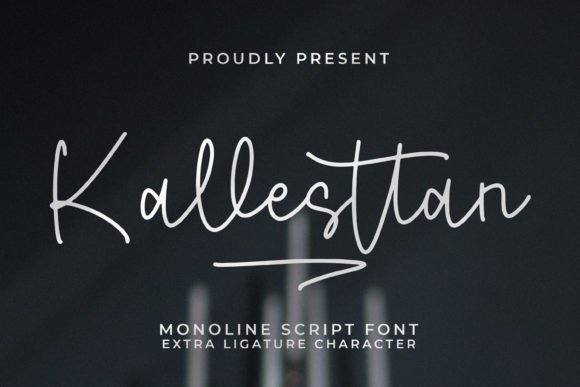
Prepare to be captivated by Kallesttan, an exceptional Monoline Script Font crafted with precision by Integritype Studio. This elegant and timeless font is meticulously designed to elevate your creative projects to new heights of sophistication.
Unleash your imagination as Kallesttan gracefully adorns your logos, branding designs, homeware creations, product packaging, and more. Its versatility extends to mugs, quotes, posters, shopping bags, t-shirts, book covers, business cards, and an endless array of luxury projects.
Embrace Kallesttan's allure in your invitations, greeting cards, labels, and photography, leaving a lasting impression on every occasion. Whether you're a graphic designer, a creative entrepreneur, or simply someone with a passion for aesthetics, Kallesttan is your key to unlocking a world of limitless possibilities.
Experience the seamless integration of ligatures, alternatives, and swashes, adding a touch of whimsy and playfulness to your designs. The font's PUA encoding ensures accessibility without additional software, while its support for 65 languages, including English, French, Spanish, German, and many more, makes it a truly global font.
Elevate your creative vision with Kallesttan, the epitome of elegance and sophistication, and watch your projects transform into captivating masterpieces. Its endless possibilities await your exploration, ready to ignite your creativity and leave an indelible mark on the world.